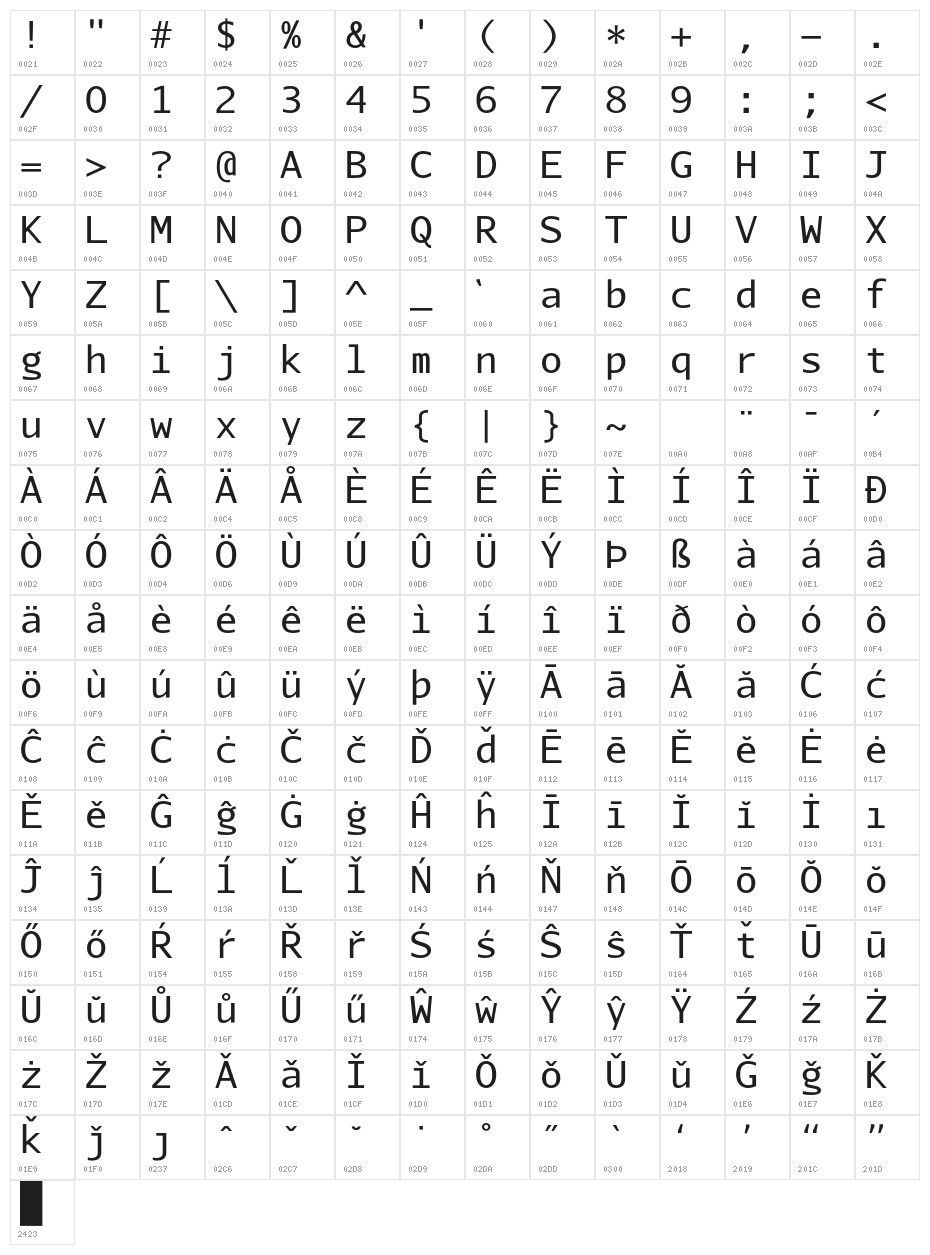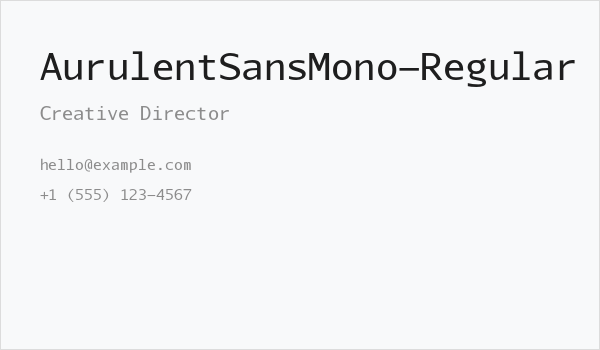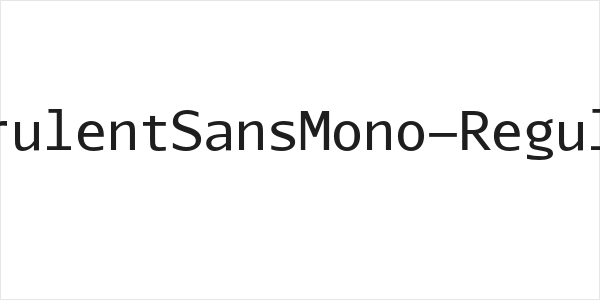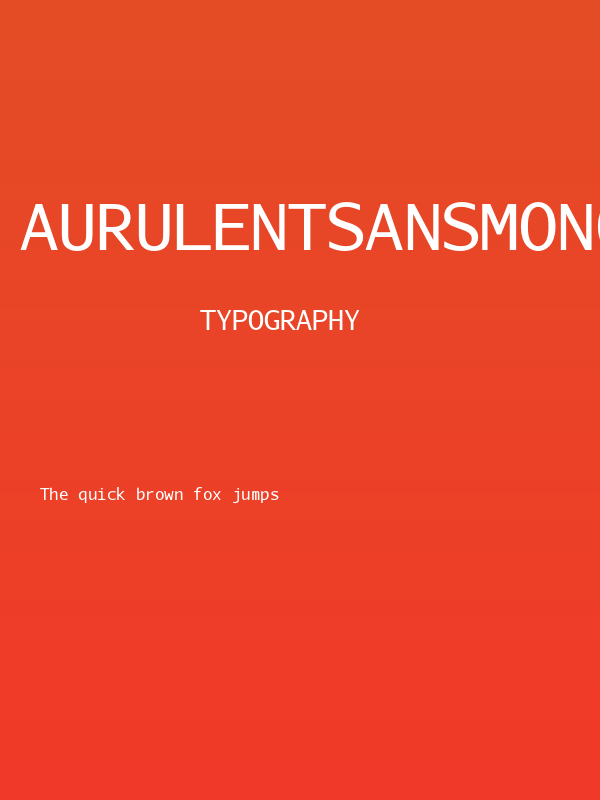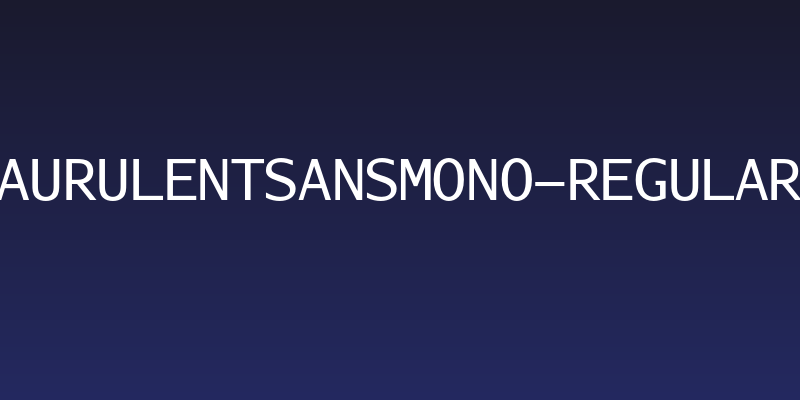
AurulentSansMono-Regular Font
This font is a monospaced typeface characterized by its clean and modern appearance. Each character is designed to occupy the same amount of horizontal space, making it ideal for coding and tabular data. The letters have a uniform stroke width, contributing to a balanced and harmonious look. The design is straightforward, with minimal embellishments, ensuring high legibility even at smaller sizes. The font includes a complete set of uppercase and lowercase letters, numbers, and a variety of special characters, making it versatile for various applications.
Use CaseCoding, Technical documentation, Data tables
Proposed ProjectsSuitable for programming environments, technical documentation, and any project requiring precise alignment of text.